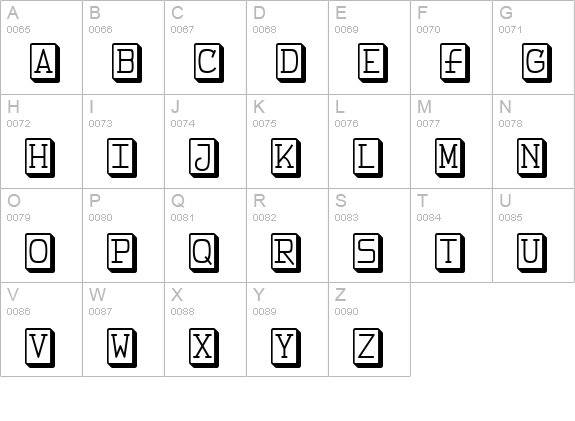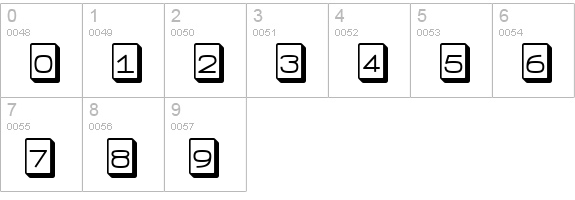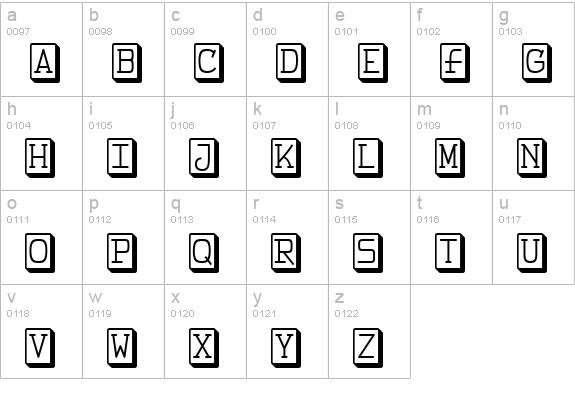
FeggoliteKeyed Font Details
FeggoliteKeyed font exudes a sense of elegance and sophistication with its sleek lines and modern design. This versatile font is perfect for a wide range of projects, from branding to editorial design. Its clean and contemporary look makes it ideal for creating eye-catching headlines or adding a touch of class to your printed materials. What sets FeggoliteKeyed font apart is its unique character and attention to detail, making it a standout choice for any design endeavor. Whether you're looking to create a sleek logo or craft a visually appealing website, this font will surely elevate your project to the next level. And the best part? FeggoliteKeyed font is available for free download at FontsMarket.com, giving you easy access to this stylish typeface without breaking the bank. Don't miss out on the opportunity to enhance your designs with this stunning font - download FeggoliteKeyed today and see the difference it can make!